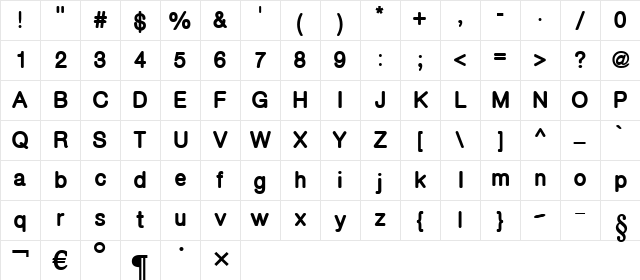
Complete GIST-TMOTChanakya Bold glyph index. Displaying only characters natively supported by GIST-TMOTChanakya Bold font.
GIST-TMOTChanakya is a composed and adaptable typeface that performs quietly and consistently across a wide range of design contexts. Its bold stroke weight gives it real presence on the page.